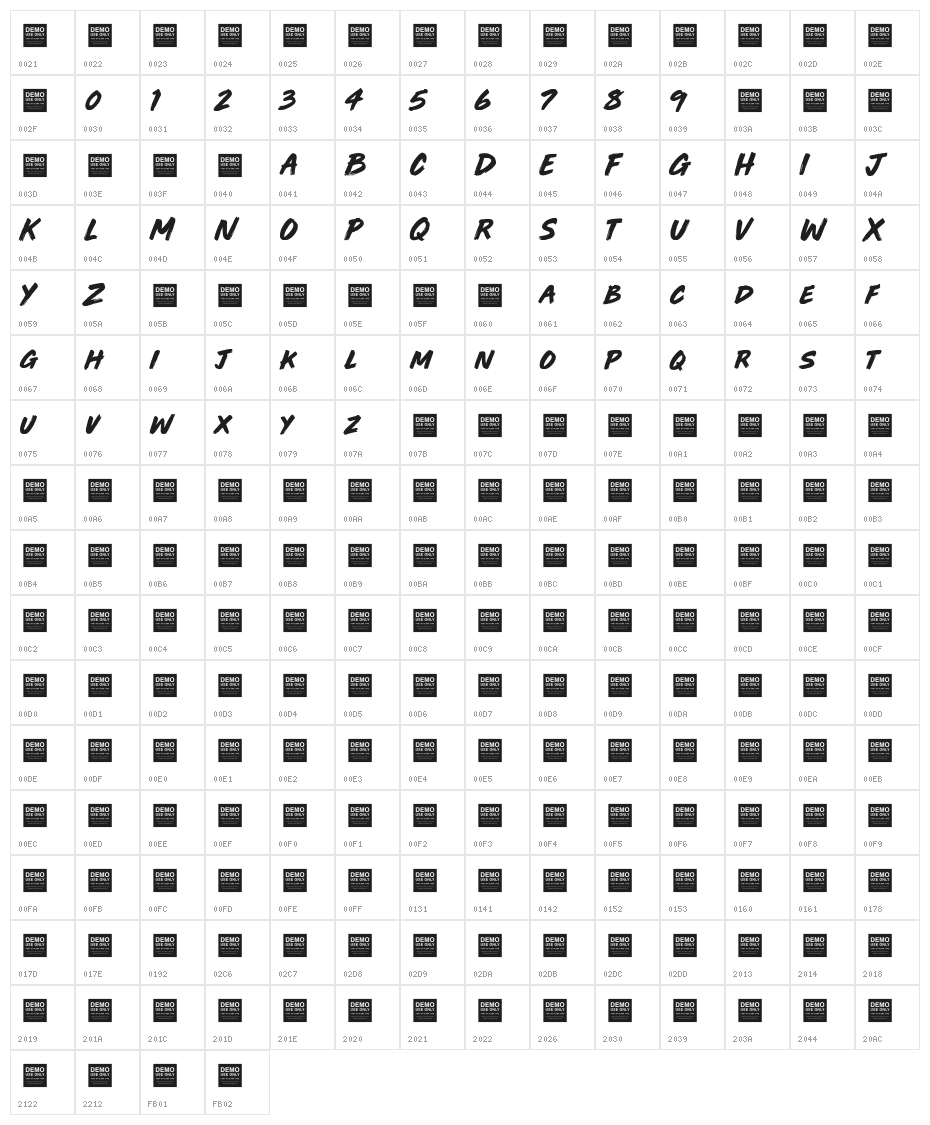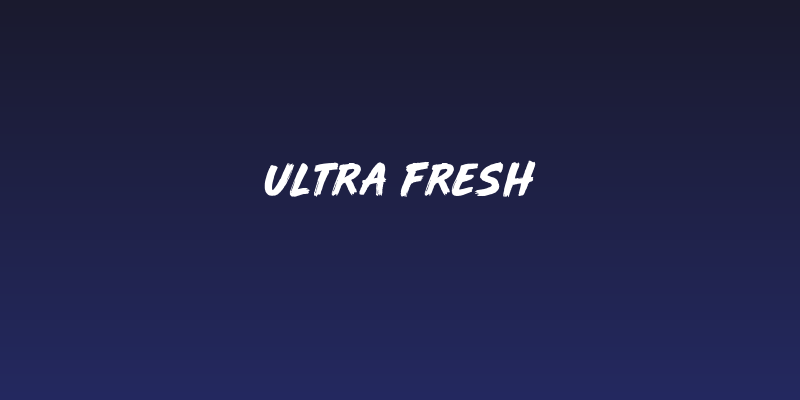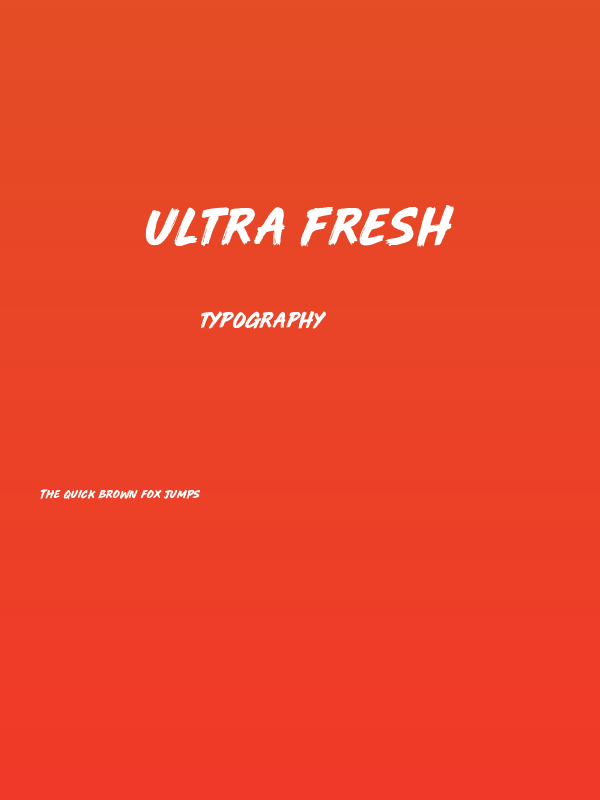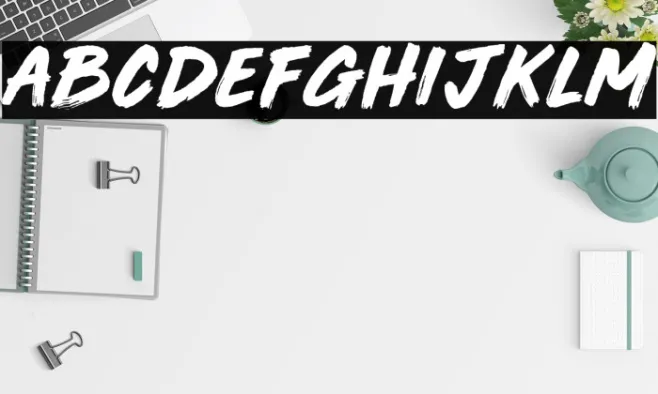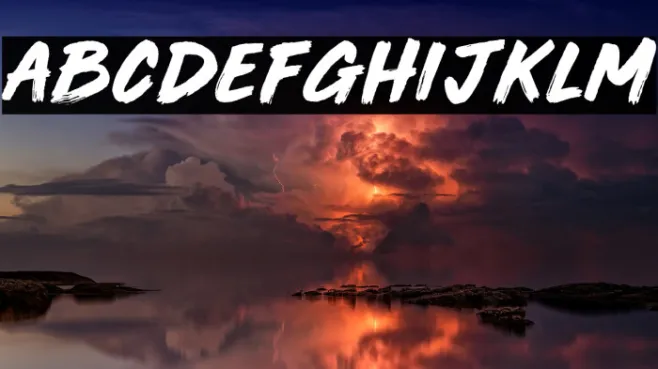
Ultra Fresh Font
Ultra Fresh Description
This font features a bold, brush-like style with dynamic strokes that convey energy and movement. The uppercase and lowercase letters are crafted with a sense of spontaneity, resembling hand-painted signage. The numbers and special characters maintain this energetic aesthetic, making the font suitable for eye-catching designs. Its rough edges and varying stroke widths give it a raw, artistic feel, perfect for projects that require a touch of creativity and flair.
| Proposed Projects | Ideal for posters, branding, packaging, and any project needing a bold, artistic touch. |